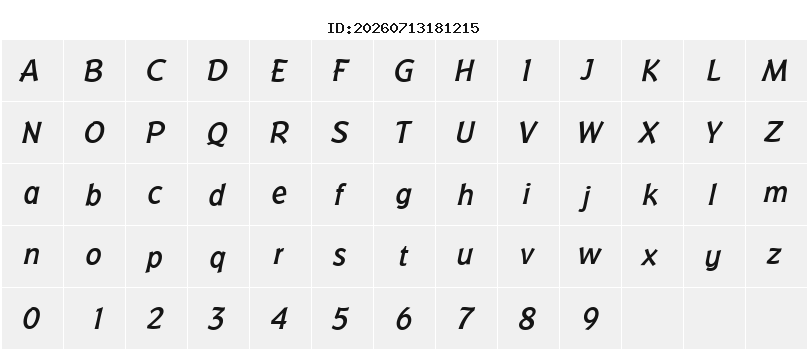
BadgerMediumItalic Preview
About BadgerMediumItalic.ttf
BadgerMediumItalic.ttf is a modern, elegant sans-serif font designed for ultimate readability and visual harmony. Perfect for branding, headlines, web design, and print materials.